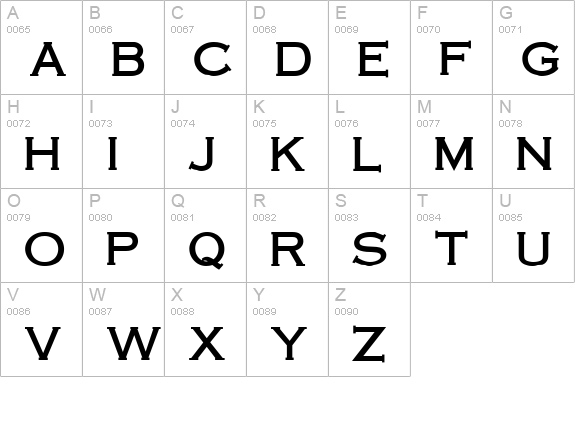
Cobalt Bold Font Details
Cobalt Bold is a strong, high-contrast variant in the Cobalt typeface family \xE2\x80\x94 well suited to headlines, attention-grabbing titles, and strong calls-to-action.
Introducing Cobalt Bold font, a striking and versatile typeface that exudes confidence and modernity. With its bold and sharp letterforms, Cobalt Bold is perfect for making a statement in headlines, titles, and logos. This font effortlessly combines a sleek and contemporary aesthetic with a touch of elegance, making it suitable for a wide range of design projects. What sets Cobalt Bold font apart is not only its bold and impactful design but also the fact that it is available for free download at FontsMarket.com. This means that designers and creatives can easily access this high-quality font without any cost, making it a valuable addition to any font library. Whether you're working on branding, advertising, packaging, or any other design project that requires a bold and eye-catching font, Cobalt Bold is sure to make a lasting impression. Download it for free today and elevate your designs with this modern and versatile typeface.